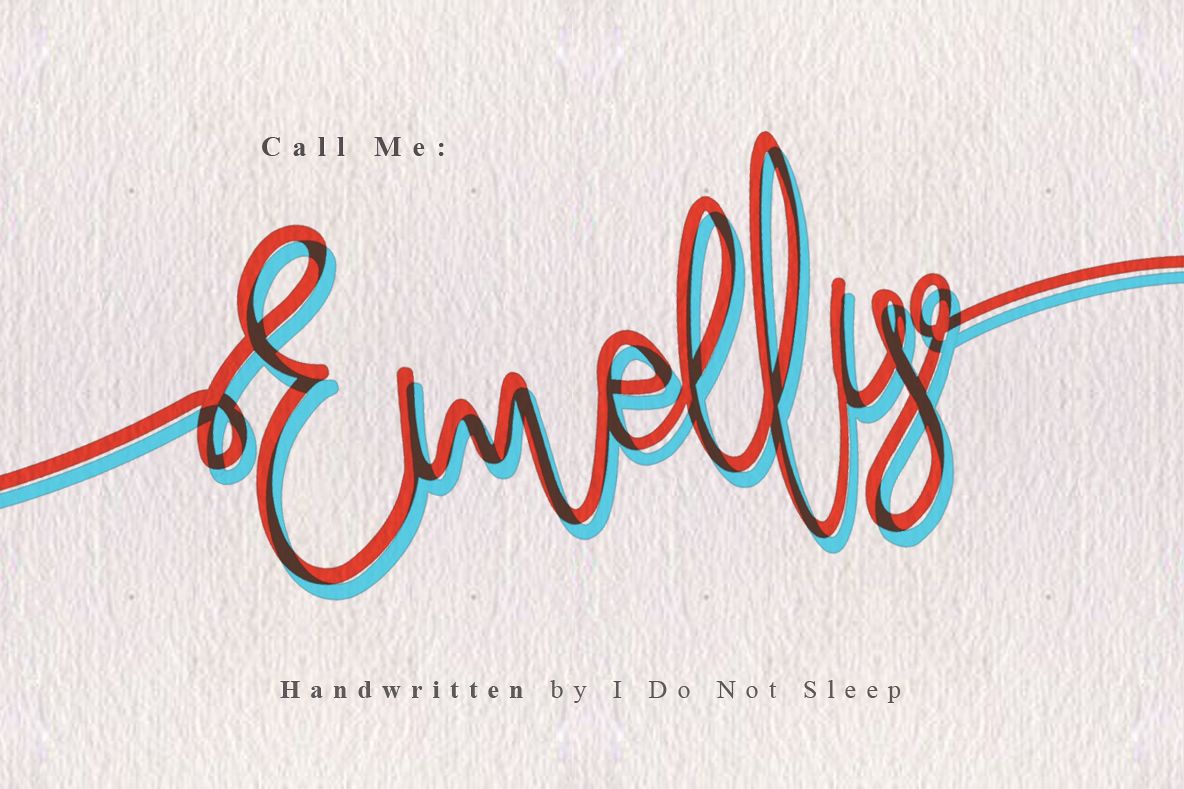
Emelly
Introducing Emelly font script , a classy, contemporary pair of script and serif fonts. With a stylish clean, outline and trace style serif font, expressive script companion, Emelly font script offers beautiful typographic harmony for a diversity of design projects, logo name, watermark logos & branding, wedding designs, social media posts, advertisements & product designs.Your download will receive files OTF and TTF, designed to work as perfect companions or simply as strong standalone
Emelly font script
• A clean, free-flowing script font containing upper & lowercase characters, numerals and a large range of punctuation.
Emelly font script  Ligatures